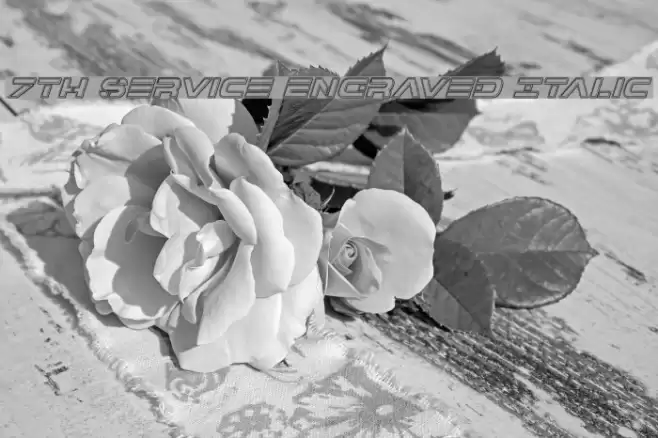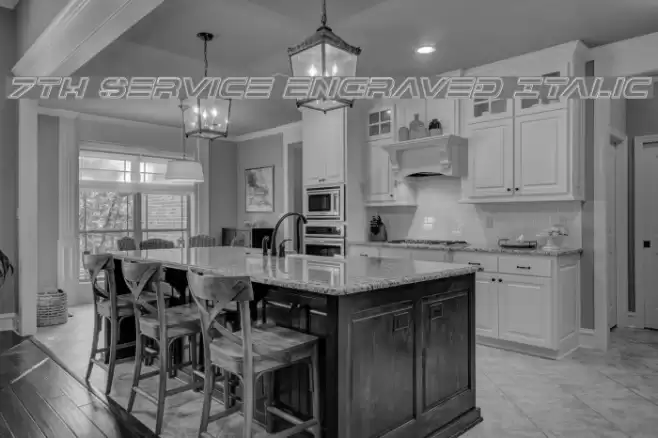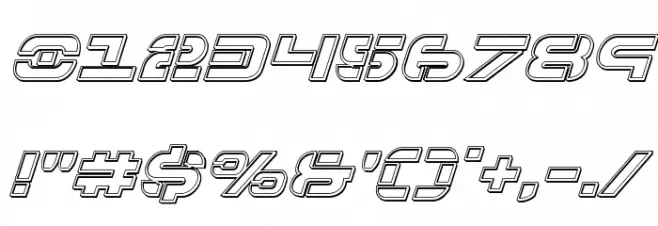
7th Service Engraved Italic Font
7th Service Engraved Italic Description
This font features a bold, modern design with a distinct engraved appearance. Each character is outlined with a double line, creating a three-dimensional effect that adds depth and sophistication. The italic slant gives it a dynamic and forward-moving feel, making it ideal for projects that require a sense of motion or progress. The uppercase and lowercase letters maintain a consistent style, while the numerals and special characters are crafted to match the overall aesthetic. This font is perfect for creating eye-catching headlines, logos, and branding materials that need a contemporary and stylish touch.
A bold, engraved, italic font with a modern, three-dimensional look from Uncategorized fonts.
- Proposed Projects: Ideal for branding, logos, headlines, and modern design projects.